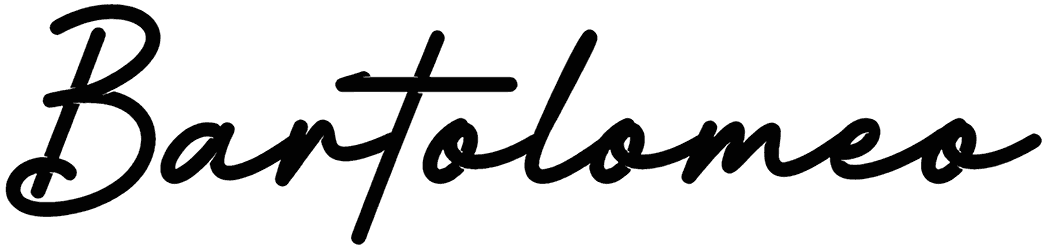
Bartolomeo Font
Despite the very clean and trending connected characters, the Bartolomeo font can be used for many applications, including signing personal documents, cosmetic brands, birthday invitation cards, and postcards. Give a swash flair to your designs with this cursive and script font. The sweeping lines and serif peaks give it a classic vibe, which makes it one of the best.